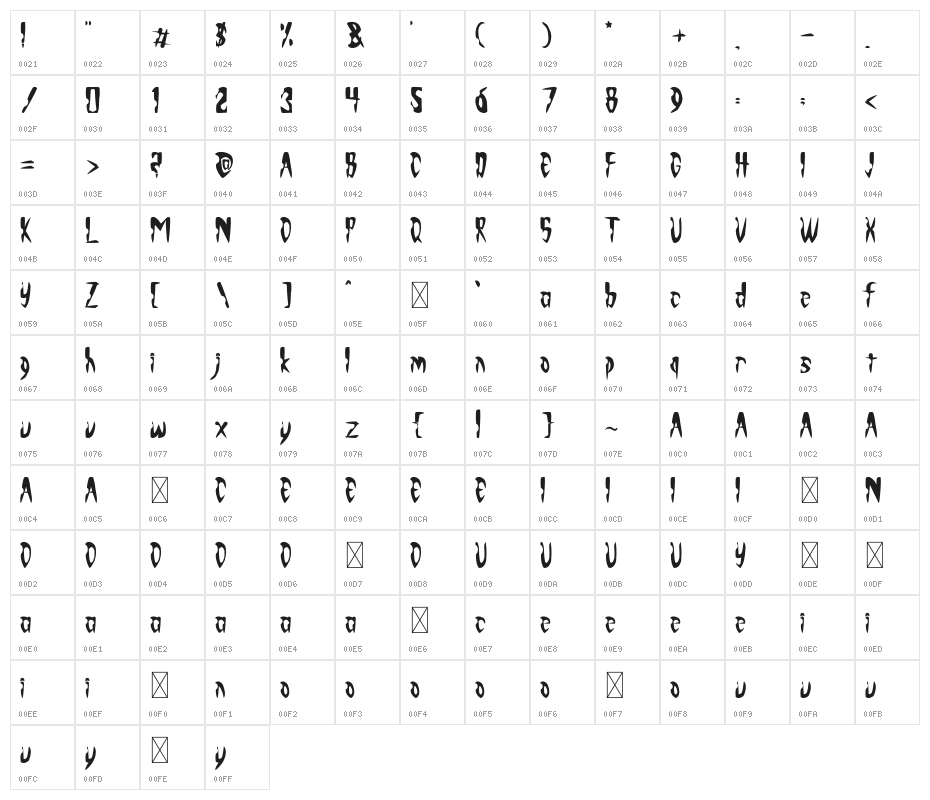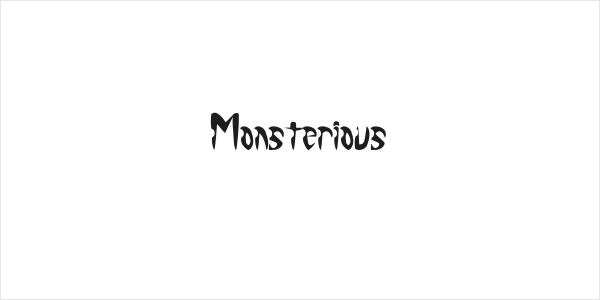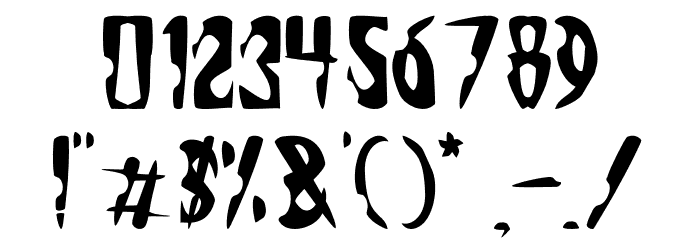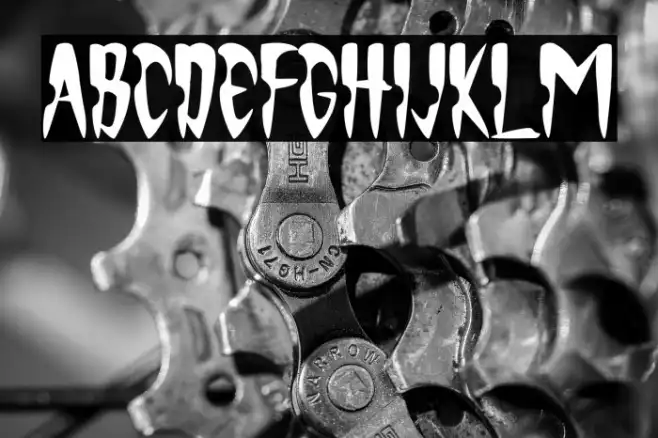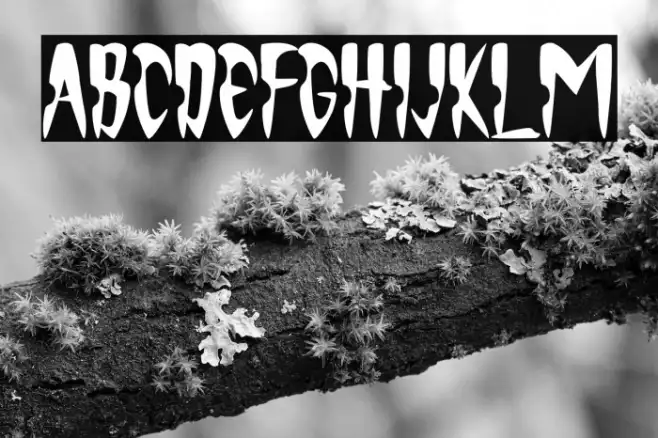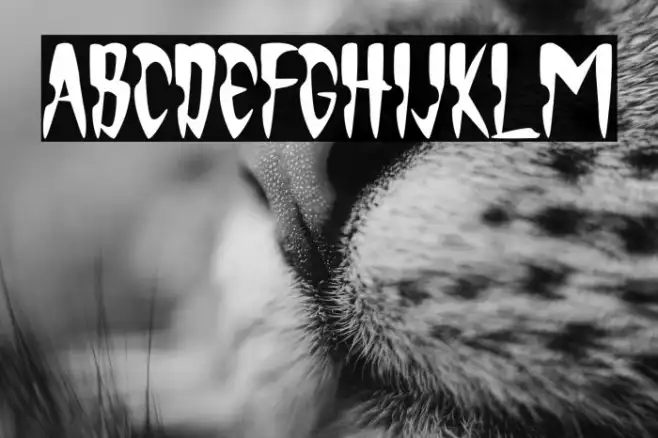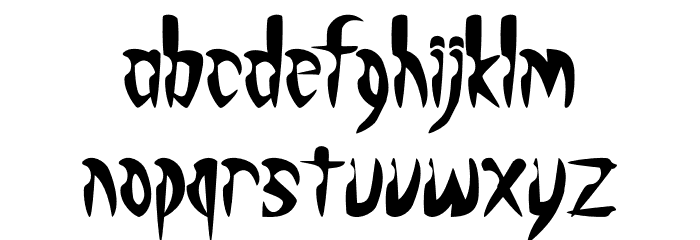
Monsterious Font
Monsterious Description
This font features a bold and dramatic style with sharp, jagged edges that evoke a sense of mystery and intrigue. The characters are irregular and dynamic, with varying stroke thickness that adds to its unique and eye-catching appearance. The uppercase and lowercase letters maintain a consistent theme, with exaggerated curves and pointed tips that create a sense of movement. The numbers and special characters follow the same design principles, ensuring a cohesive look across all elements. This font is perfect for projects that require a bold and adventurous aesthetic.
| Use Case | Headlines, Posters, Logos |
| Proposed Projects | This font is well-suited for horror-themed posters, Halloween invitations, video game titles, and any project that requires a bold, adventurous look. |